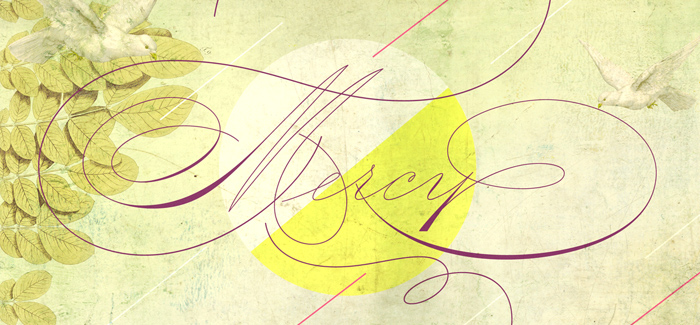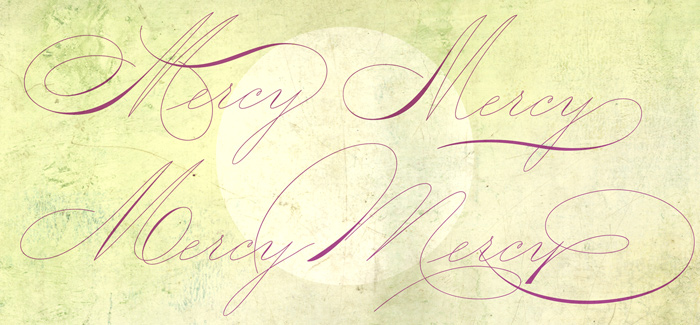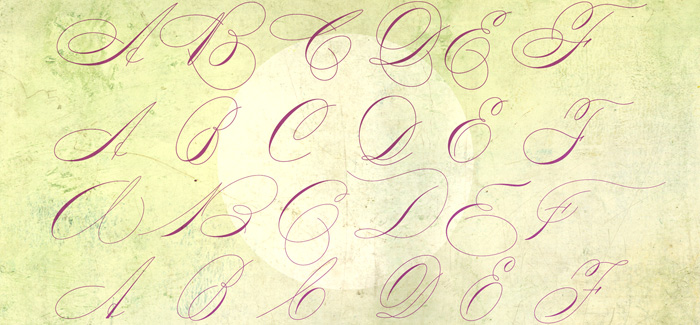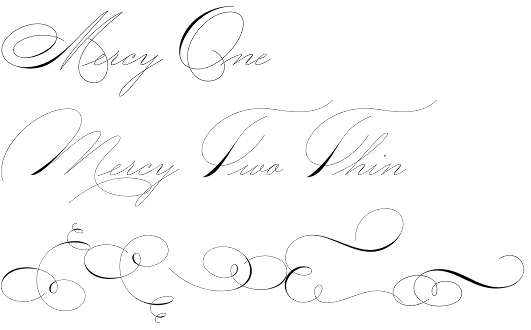
Mercy font
Mercy font by Eduardo Recife (Misprinted Type) is a typeface with lots of similar elements with ornamental penmanship – in this particular one we have longer than usual ascenders and descenders and more simple and even lighter shades. Mercy font has very distinguished feminine presence combined with a lot of elegance and beauty of original Ladie’s Hand. It is supported by a lot of ornaments, flourishes and additional open type features that enhance the feeling of authenticity in your design. Mercy font family has a wide range of use – from business cards, holiday greetings and writings to food and beverage packagings.
Designers: Eduardo Recife
Publisher: Misprinted Type